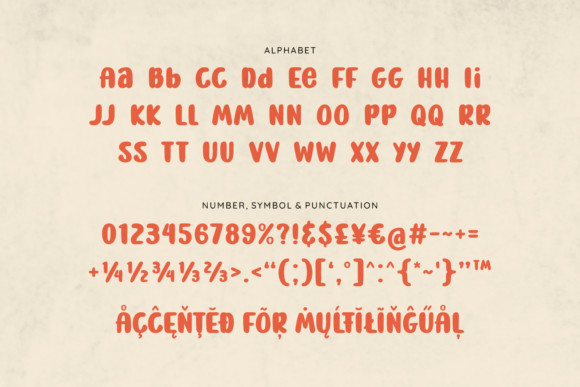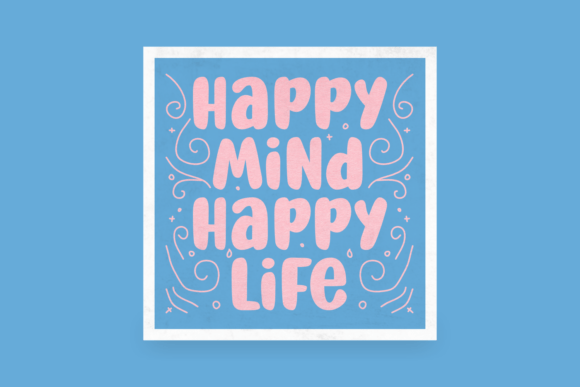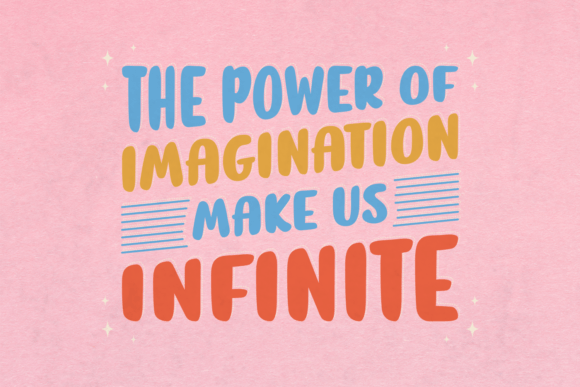
Introduction to Smile Again Font
Remember the last time you stumbled upon the perfect font for a creative project? The one that made your design pop and leave a lasting impression on your audience? For designers, finding that special font can be a game-changer. It’s the spark that ignites a new idea, elevates a concept, and brings a smile to your face.
That’s exactly what the Smile Again Font is all about – spreading joy and positivity through its playful, handwritten style. This charming design resource is perfect for adding a personal touch to your next project, whether it’s a birthday card, a quote, or a website.
Key Features of Smile Again Font
- Unique, playful design featuring a transparent background, allowing for easy integration with any background image or color.
- Designed to evoke a sense of happiness and friendliness, making it an excellent choice for branding, logos, and other creative projects.
- Comes in multiple sizes and styles, including bold and regular weights, allowing for versatility and flexibility in design applications.
Honest Review: Smile Again Font
I recently had the opportunity to work with the Smile Again Font, a free download from a popular design resource. My initial impression was that this font was perfect for a creative project that needed a touch of warmth and friendliness.
- ✨ The Smile Again Font has a beautiful, handwritten feel that adds a personal touch to any design.
However, I did encounter a few limitations while using the Smile Again Font.
- ⚠️ The font lacks a transparent background option, which can make it difficult to use on certain design elements.
- ⚠️ The font may not be suitable for all design projects, particularly those that require a more formal or professional tone.
Overall, I was impressed with the Smile Again Font’s potential and would recommend it to designers working on creative projects that require a touch of personality and warmth. While it may have some limitations, the font’s high quality and free download make it an excellent design resource for those on a budget.
Smile Again Font
Tips for Getting the Most Out of Smile Again Font
For the best results, use the Smile Again Font on a high-contrast background to make the text stand out. You can also experiment with different font sizes and styles to add visual interest to your design.
The Smile Again Font is ideal for creating eye-catching headlines, logos, and social media graphics. It’s also perfect for designing posters, flyers, and other promotional materials.